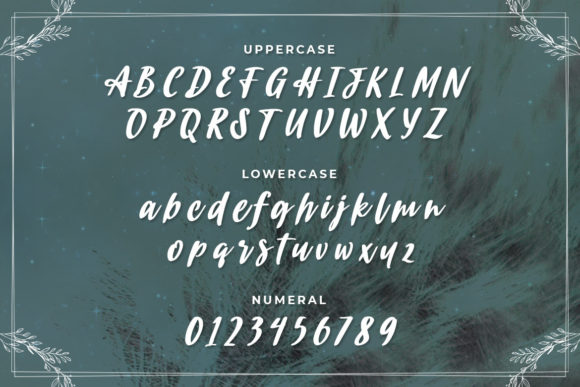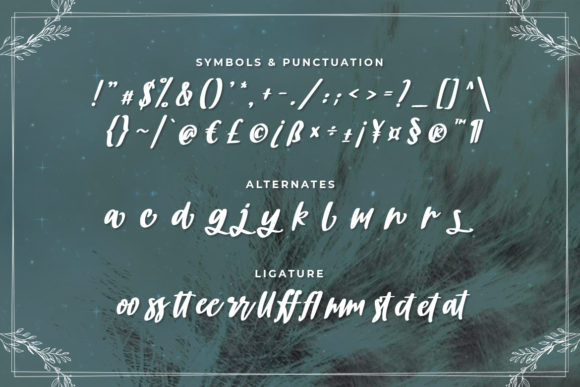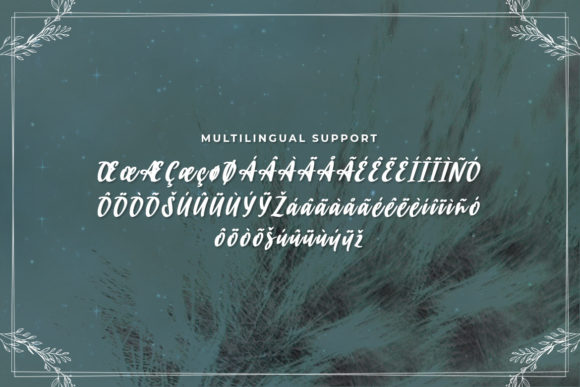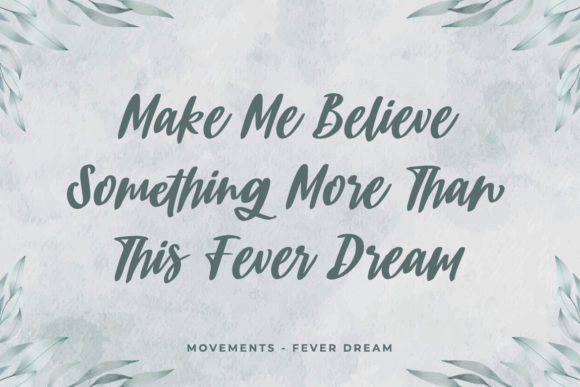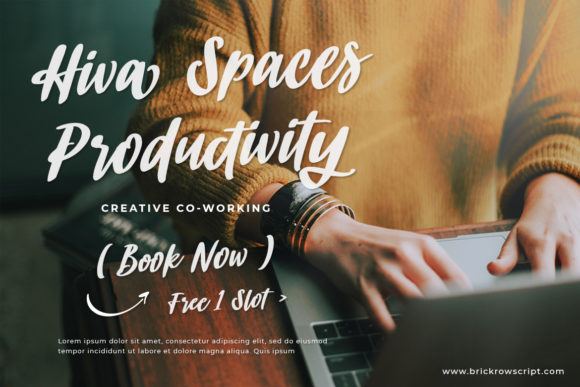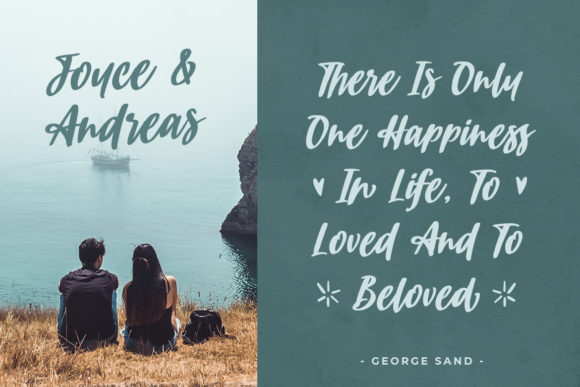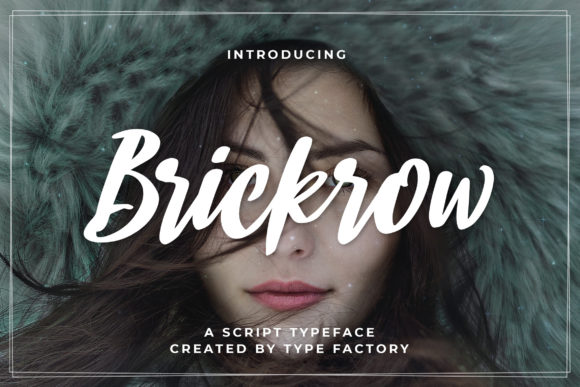
Brickrow Font: Elevate Your Designs with a Bold and Cursive Script
Are you tired of using the same old fonts in your designs? Look no further than Brickrow Font, a bold and cursive script font that’s perfect for making a statement. With its unique blend of elegance and edginess, Brickrow is ideal for a wide range of applications, from logos and headings to signage and labels. In this article, we’ll take a closer look at the features and benefits of Brickrow Font, and explore how you can use it to take your designs to the next level.
What is Brickrow Font?
Brickrow Font is a bold and cursive script font that’s designed to make an impact. Its flowing lines and connected letters create a sense of movement and energy, making it perfect for designs that need to stand out. Whether you’re creating a logo, heading, or signage, Brickrow Font is sure to grab attention and leave a lasting impression.
What Can I Use Brickrow Font For?
The versatility of Brickrow Font is one of its standout features. With its bold and cursive design, it’s suitable for a wide range of applications, including:
- Logos: Create a memorable and impactful logo that sets your brand apart.
- Headings: Add a touch of elegance and sophistication to your headings and titles.
- Letterhead: Elevate your business correspondence with a professional and stylish letterhead.
- Signage: Make a statement with eye-catching signage that grabs attention.
- Labels: Add a personal touch to your labels and packaging.
- News: Create engaging and readable news articles with a unique and stylish font.
- Posters: Design striking posters that showcase your message in a bold and eye-catching way.
- Badges: Create custom badges that make a statement and add a touch of personality.
Benefits of Using Brickrow Font
So why choose Brickrow Font for your designs? Here are just a few benefits:
- Unique and Memorable: Brickrow Font is designed to stand out and make an impact. Its bold and cursive design ensures that your designs will be remembered.
- Versatile: With its wide range of applications, Brickrow Font is perfect for designers and crafters who need a font that can adapt to different projects.
- High-Quality Design: Brickrow Font is designed with high-quality and precision, ensuring that your designs look professional and polished.
Tips for Using Brickrow Font
Here are a few tips for getting the most out of Brickrow Font:
- Experiment with Different Sizes: Brickrow Font looks great in a range of sizes, from small headings to large signage.
- Play with Swashes and Glyphs: With PUA encoding, you can access a wide range of swashes and glyphs to add personality and flair to your designs.
- Mix and Match with Other Fonts: Brickrow Font pairs well with a range of other fonts, so don’t be afraid to experiment with different combinations.
Brickrow Font is a bold and cursive script font that’s perfect for designers and crafters who want to elevate their designs. With its unique blend of elegance and edginess, it’s suitable for a wide range of applications, from logos and headings to signage and labels. Its PUA encoding makes it easy to access all of the glyphs and swashes, and its high-quality design ensures that your designs will look professional and polished. So why not give Brickrow Font a try and see how it can transform your designs?